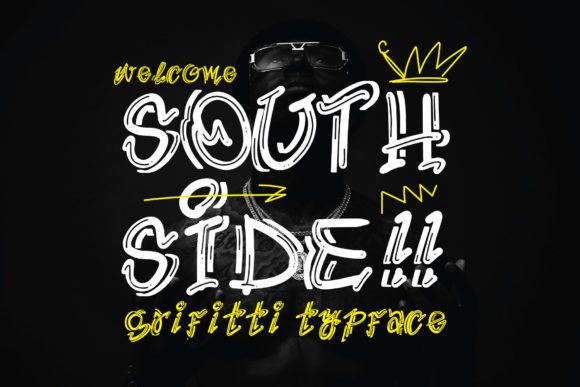
Introducing South Side Font: A Journey Through Urban Elegance
In a world of digital expression, where words dance across screens and pixels become poetry, typography takes center stage, shaping the narrative of your brand and captivating the hearts of your audience. Amidst the myriad of fonts that vie for attention, South Side Font emerges as a beacon of urban elegance, a symphony of strokes that harmonizes with your creative vision.
South Side Font is not just a collection of letters; it's an experience, an odyssey into the realm of urban sophistication. Each character, meticulously crafted by the visionary KtwoP, exudes a sense of effortless cool, echoing the vibrant energy of city streets and the allure of graffiti-adorned alleyways.
As you delve into South Side Font's diverse repertoire, you'll encounter a captivating array of styles that cater to your every creative whim. From bold and assertive to subtle and understated, South Side Font effortlessly adapts to your design aesthetic, adding a touch of urban flair to logos, posters, T-shirt designs, and social media graphics.
Whether you're a seasoned designer or just starting your creative journey, South Side Font will ignite your imagination and elevate your designs to new heights. Its versatility knows no bounds, seamlessly blending with your urban and casual creations, transforming them into masterpieces that resonate with your audience.
Dare to embrace the urban spirit, let your creativity soar, and experience the magic of South Side Font. Unleash the power of typography and watch as your designs metamorphose into captivating works of art.